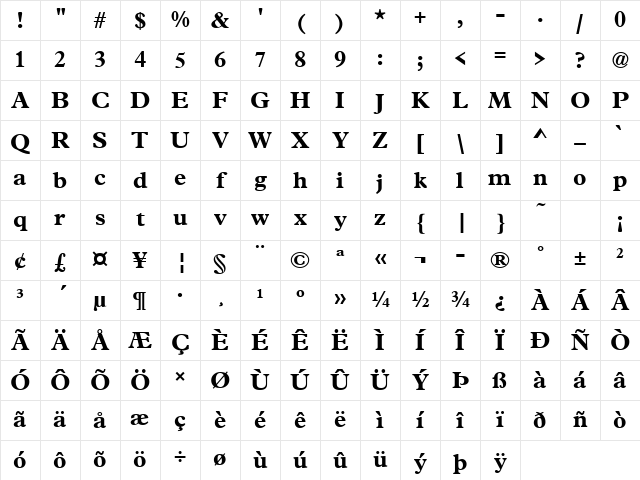
URWPleiadesT Bold
Design Context for URWPleiadesT
URWPleiadesT is a composed and adaptable typeface that performs quietly and consistently across a wide range of design contexts. Its bold stroke weight gives it real presence on the page.